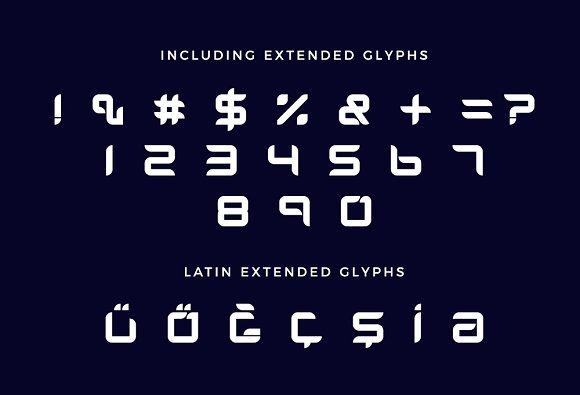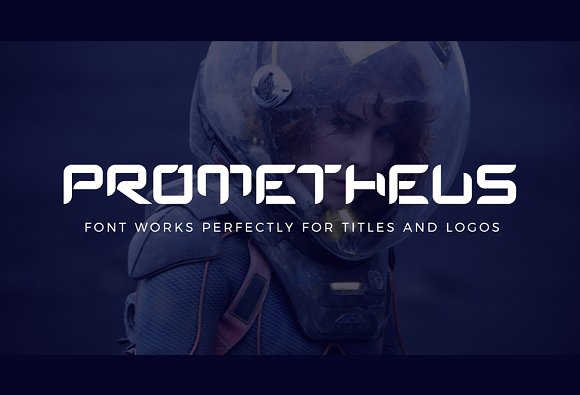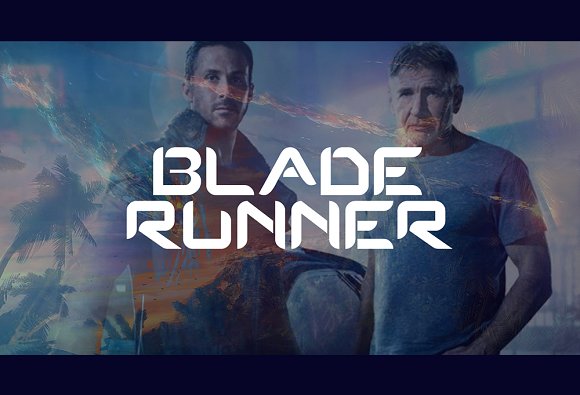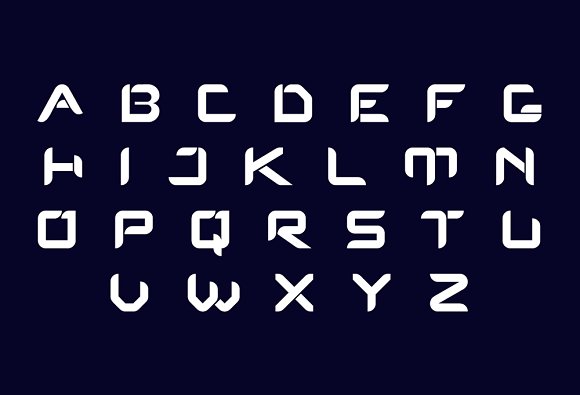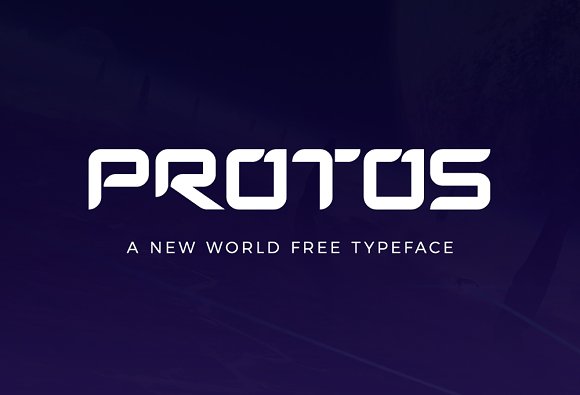
Protos Font
A New World Typeface. Font works perfectly for titles and logos. Also Protos lends itself perfectly to sports design, logos, posters, packaging, brochures, t-shirts, and so much more!